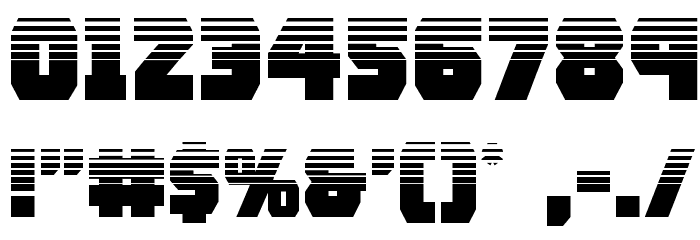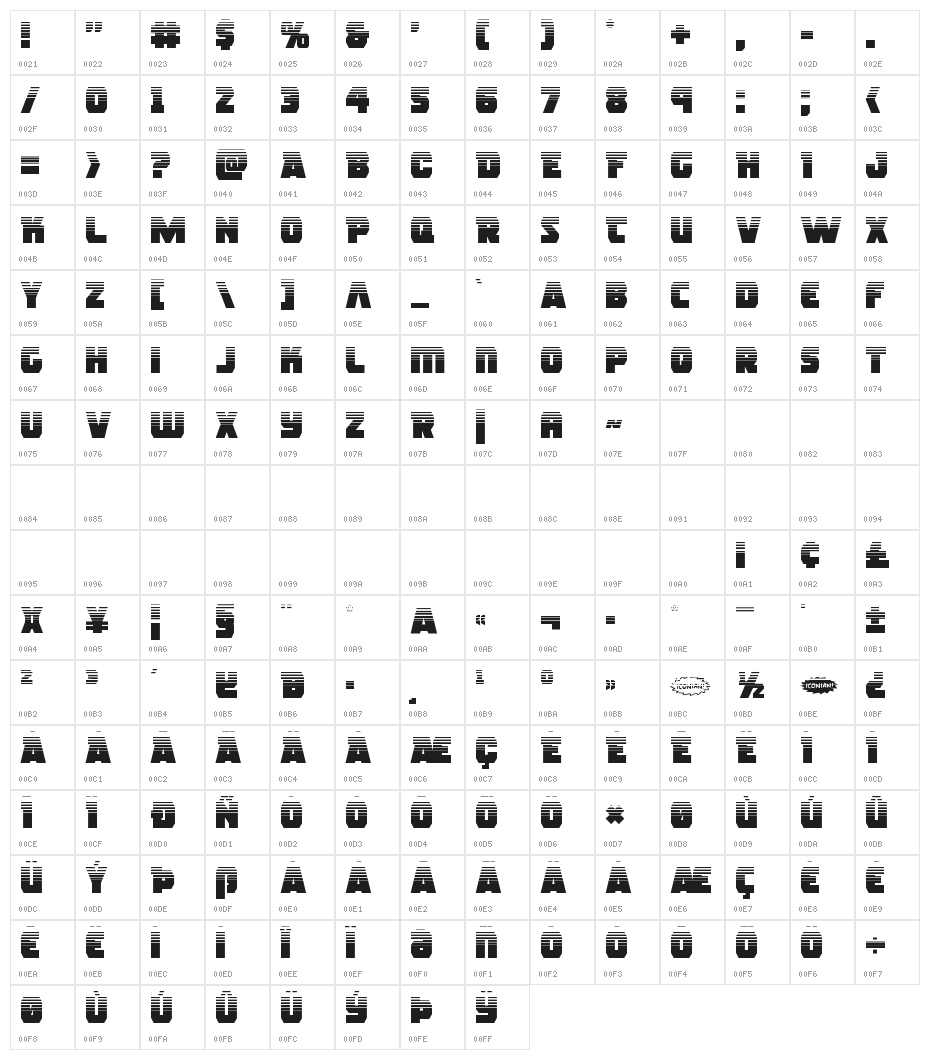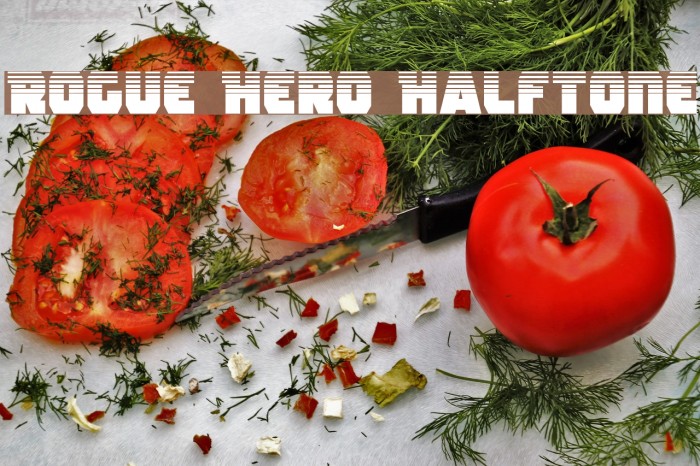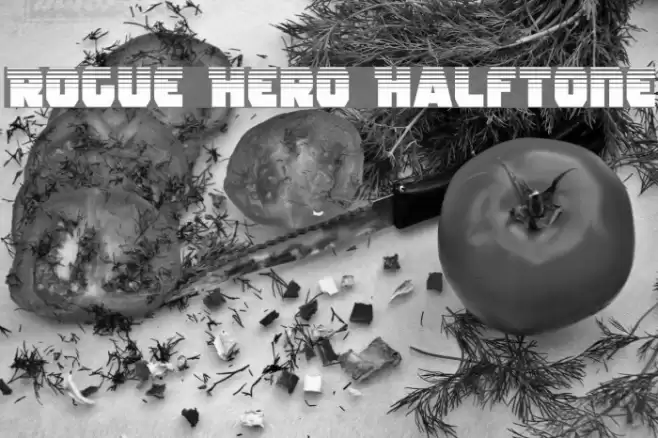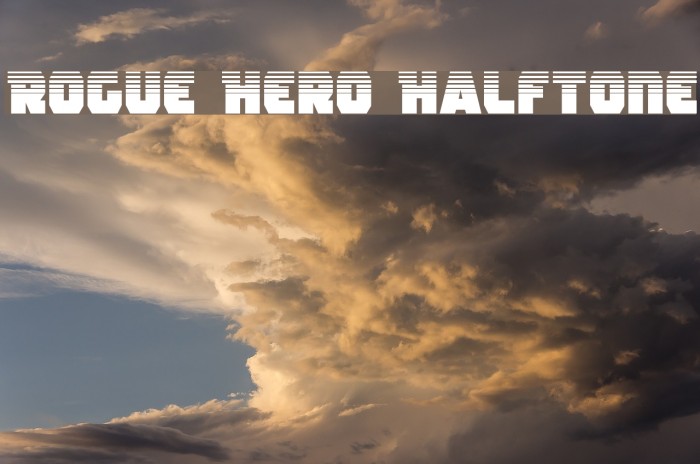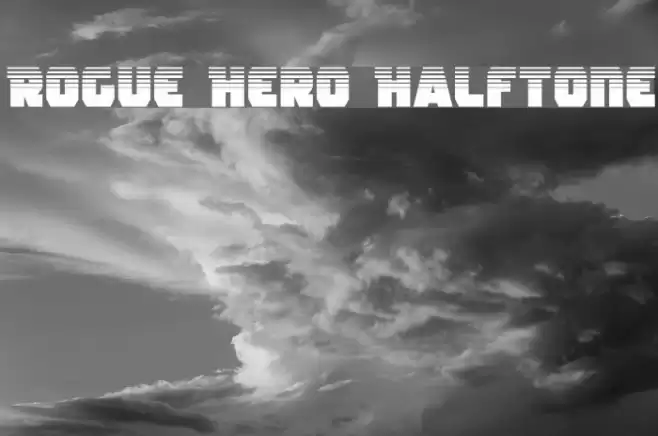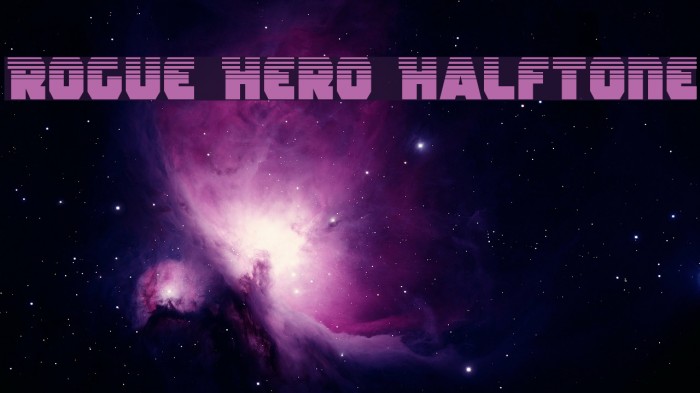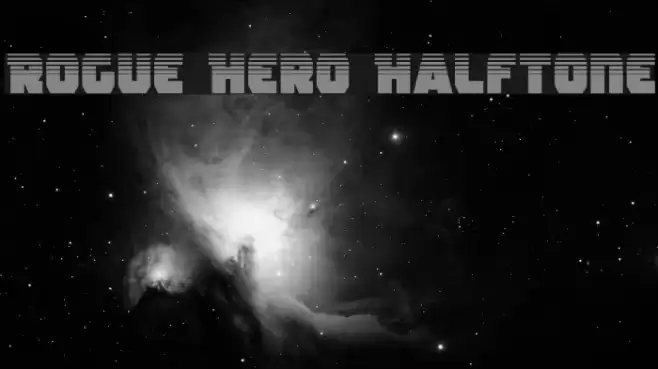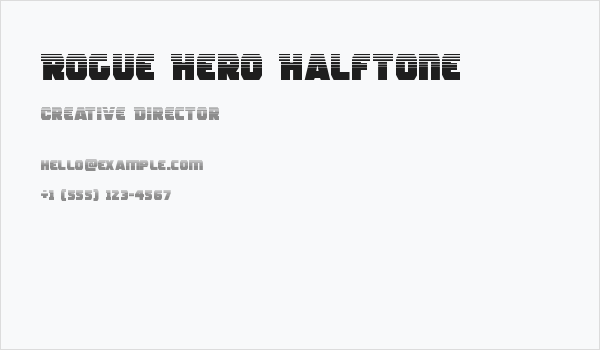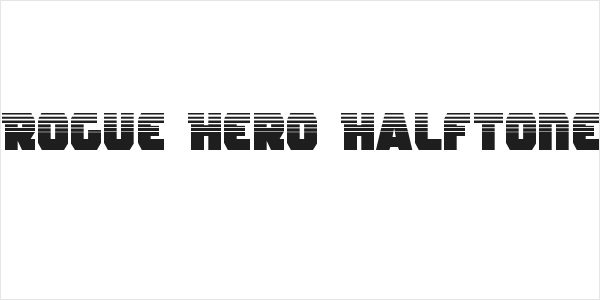
Rogue Hero Halftone Font
Rogue Hero Halftone Description
This font features a bold and striking design with a halftone effect that gives it a unique, layered appearance. The characters are constructed with solid, blocky shapes that are intersected by horizontal lines, creating a sense of depth and texture. This style is reminiscent of comic book or retro-futuristic aesthetics, making it ideal for projects that require a bold statement. The uppercase and lowercase letters maintain a consistent style, while the numbers and special characters complement the overall design. The font's strong geometric forms and halftone detailing make it stand out in any visual composition.
Overall StyleRetro-Futuristic
Proposed ProjectsIdeal for posters, comic book covers, video game titles, and branding that requires a bold, eye-catching look.